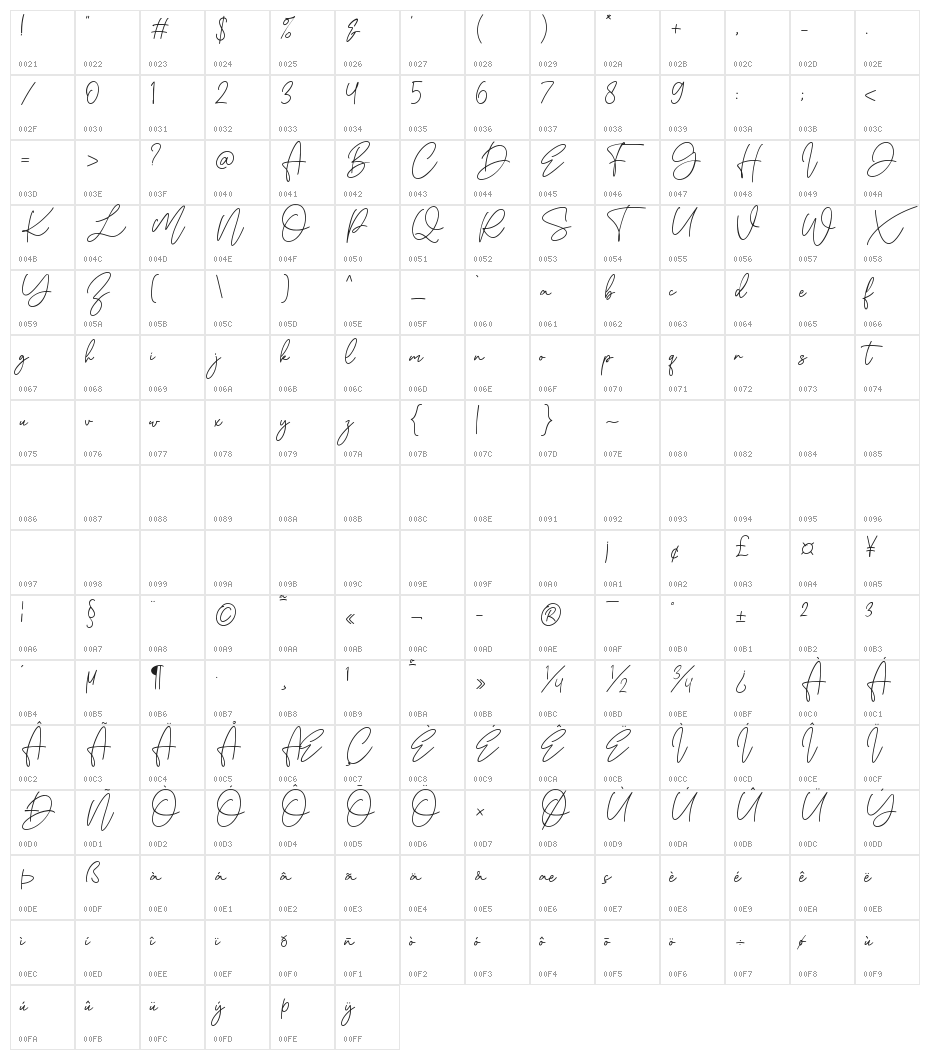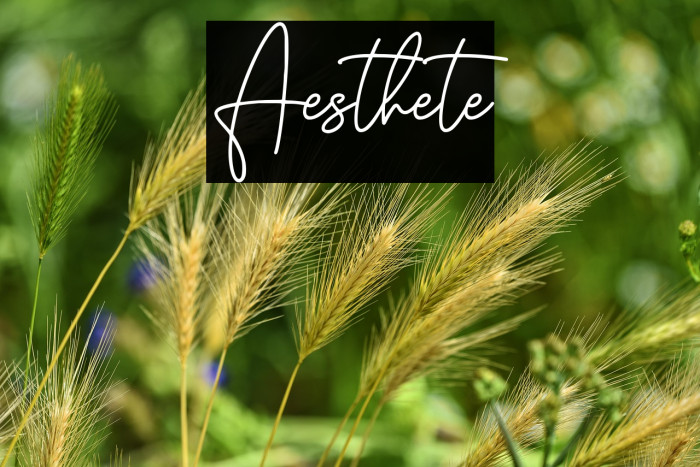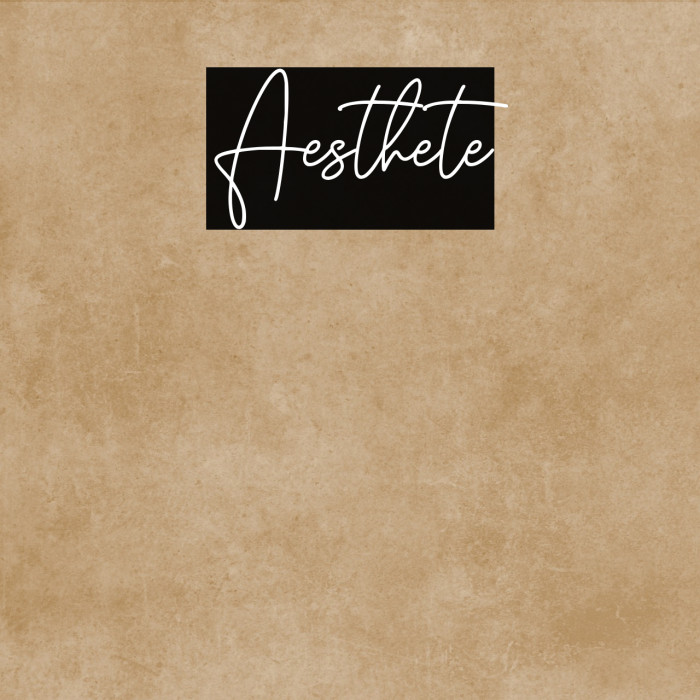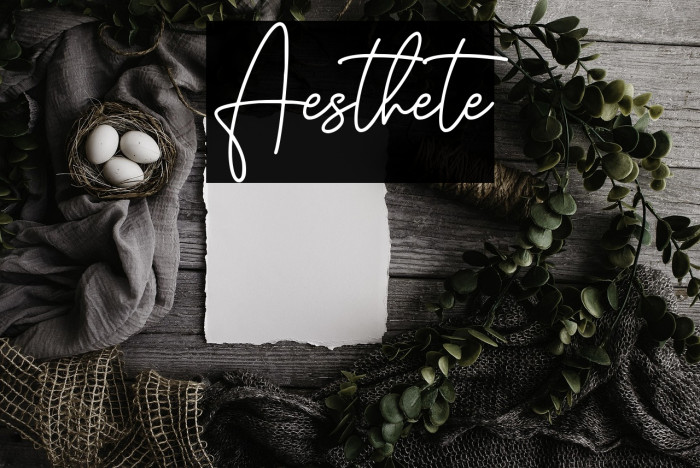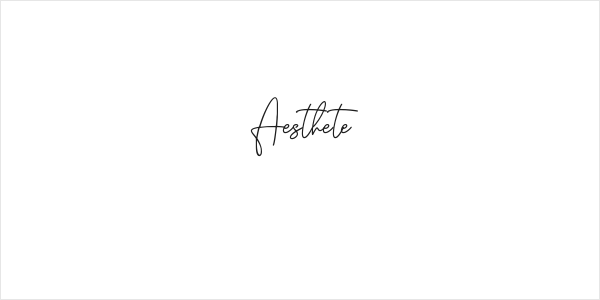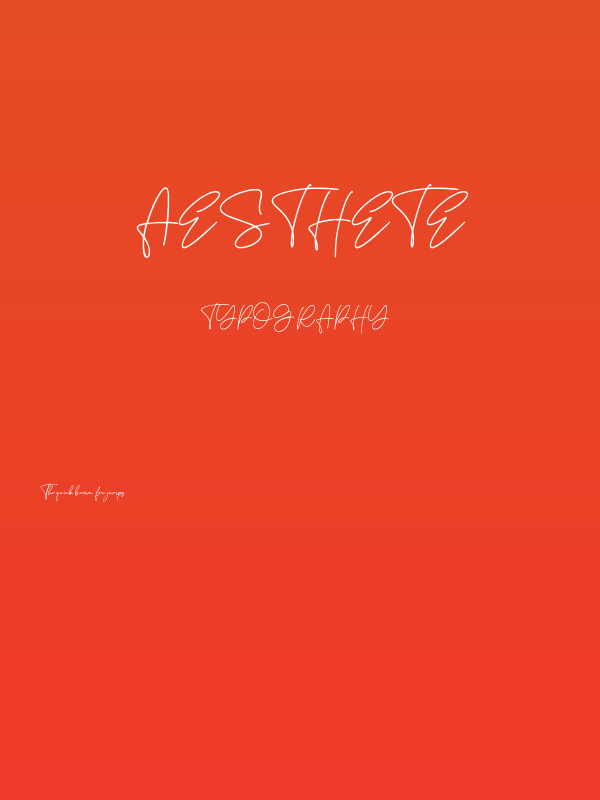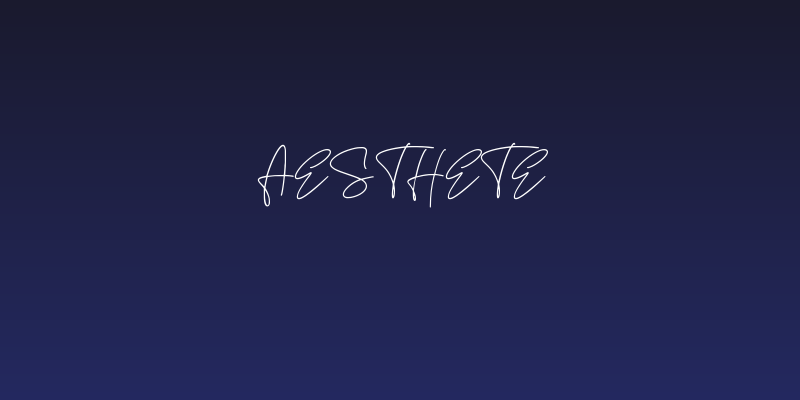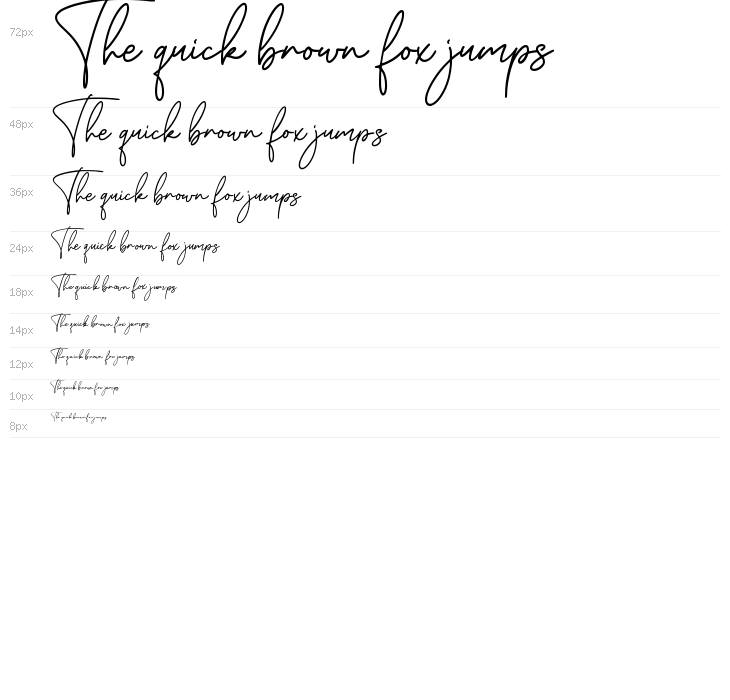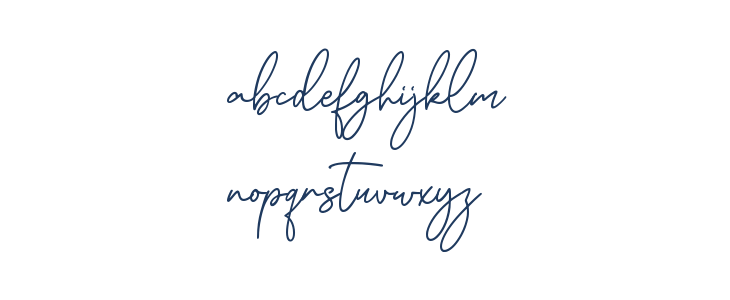
Aesthete Font
Aesthete Description
This elegant script font features a flowing, handwritten style with a modern touch. The uppercase letters are tall and slender, with graceful loops and curves that give a sense of fluidity and movement. The lowercase letters maintain a consistent style, with smooth connections between characters, enhancing the cursive appearance. The numerals are clear and legible, complementing the overall aesthetic. Special characters are thoughtfully designed, maintaining the font's cohesive look. This font exudes sophistication and charm, making it ideal for projects that require a personal, artistic touch.
| Use Case | Logos, Invitations, Social media graphics |
| Proposed Projects | Ideal for wedding invitations, branding, logos, and social media graphics. |